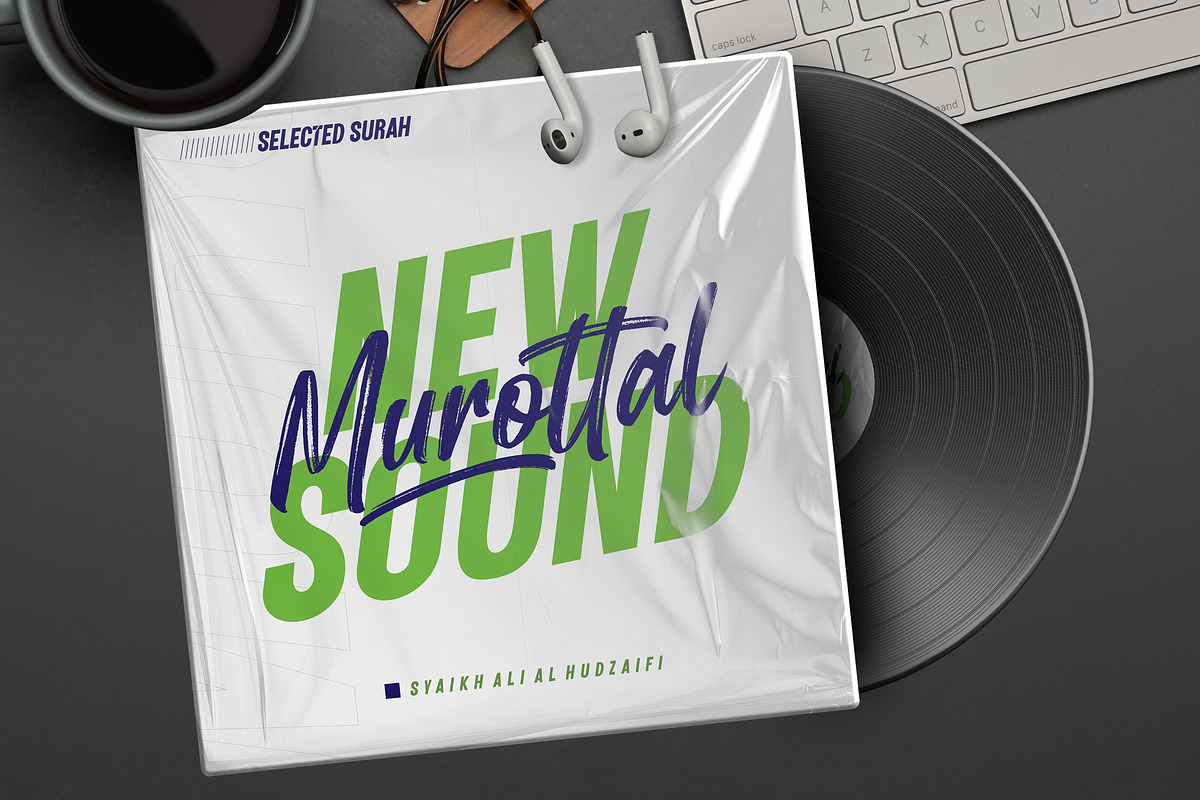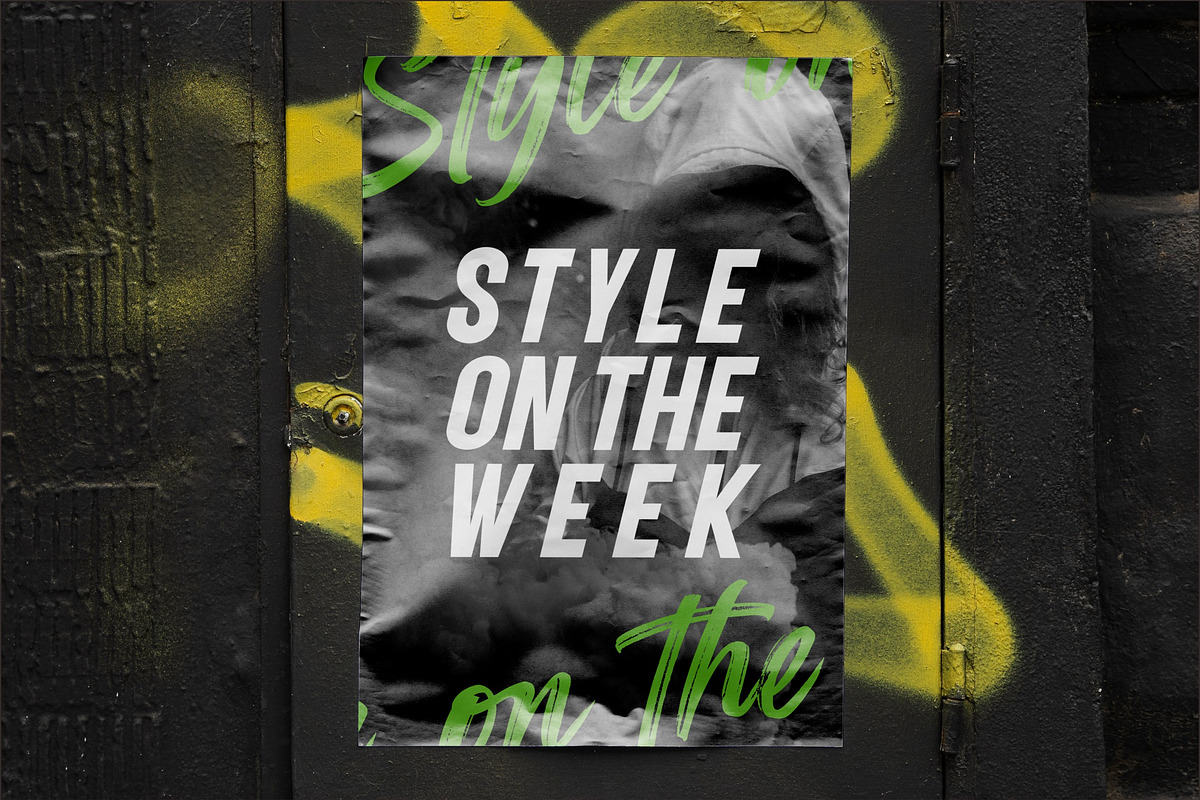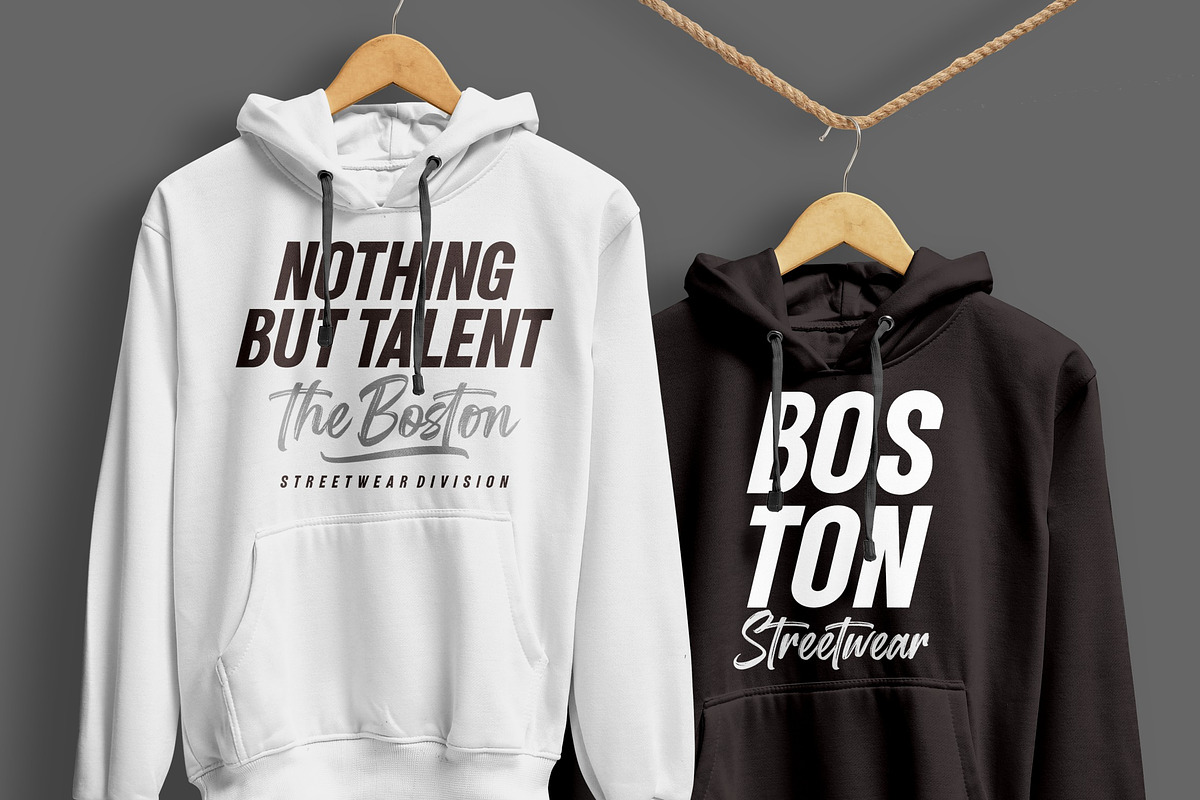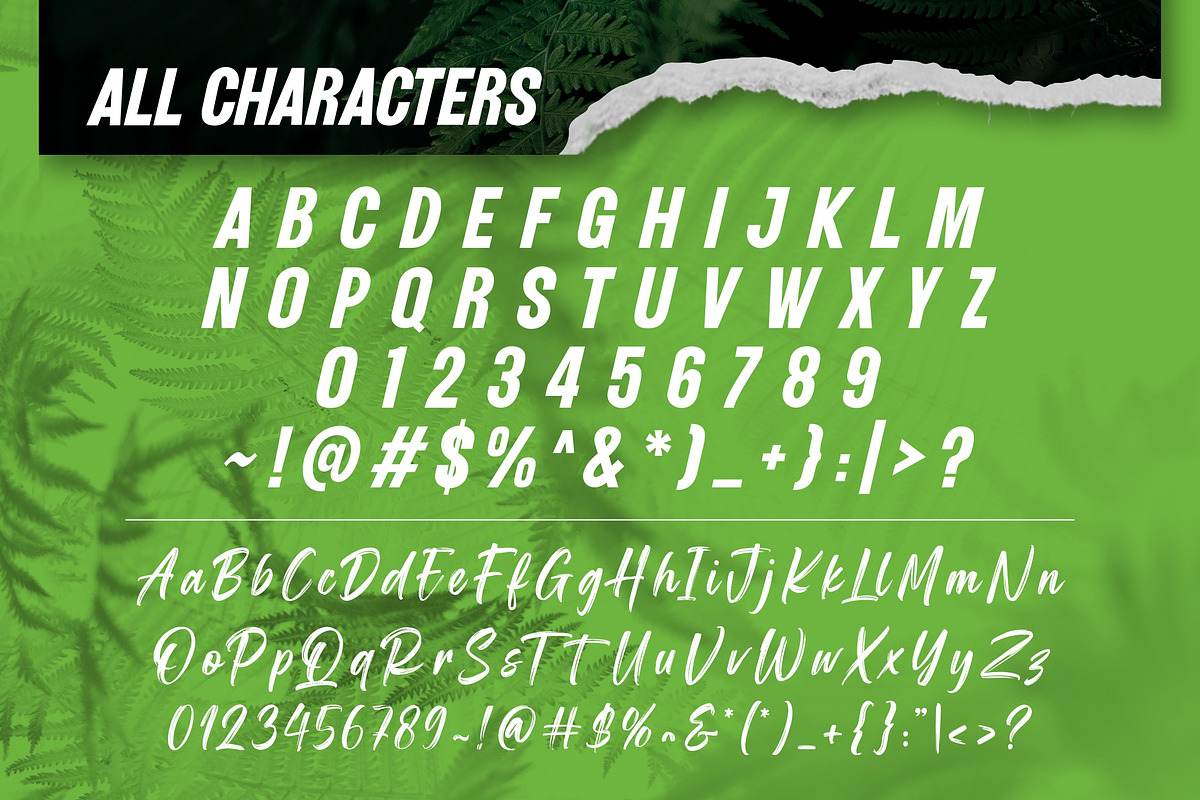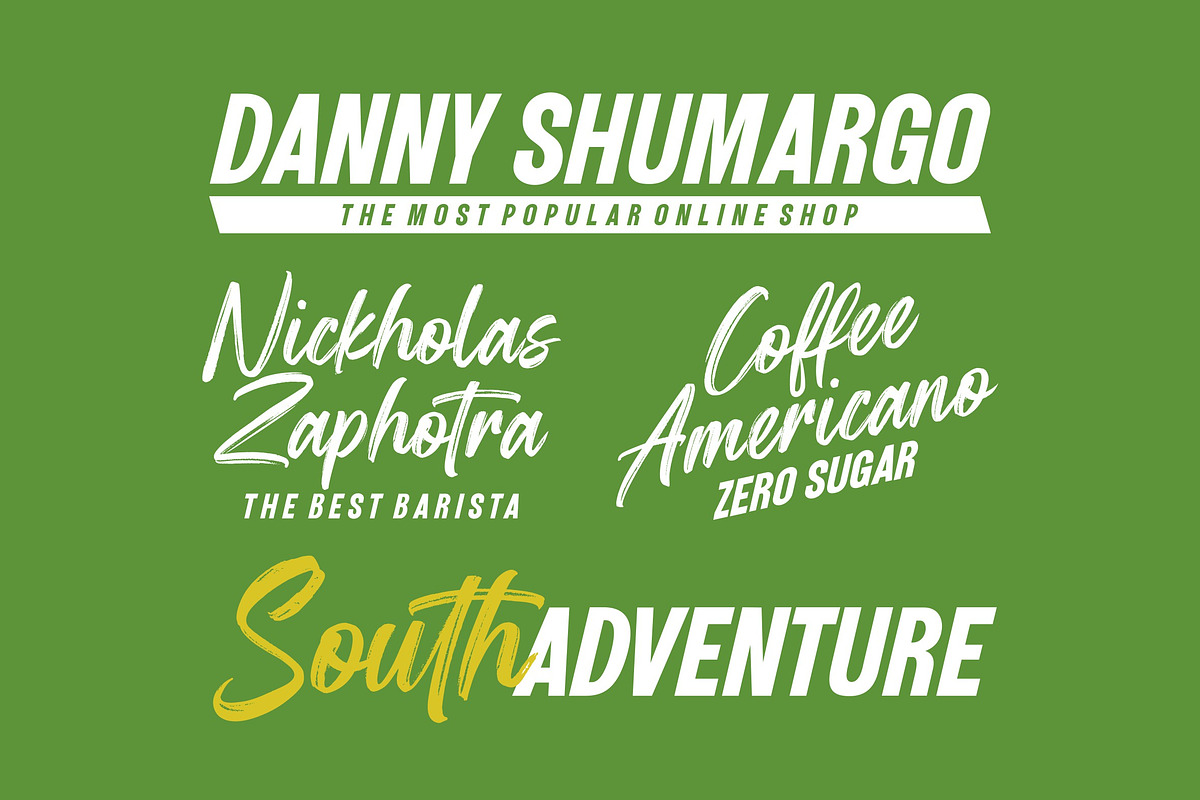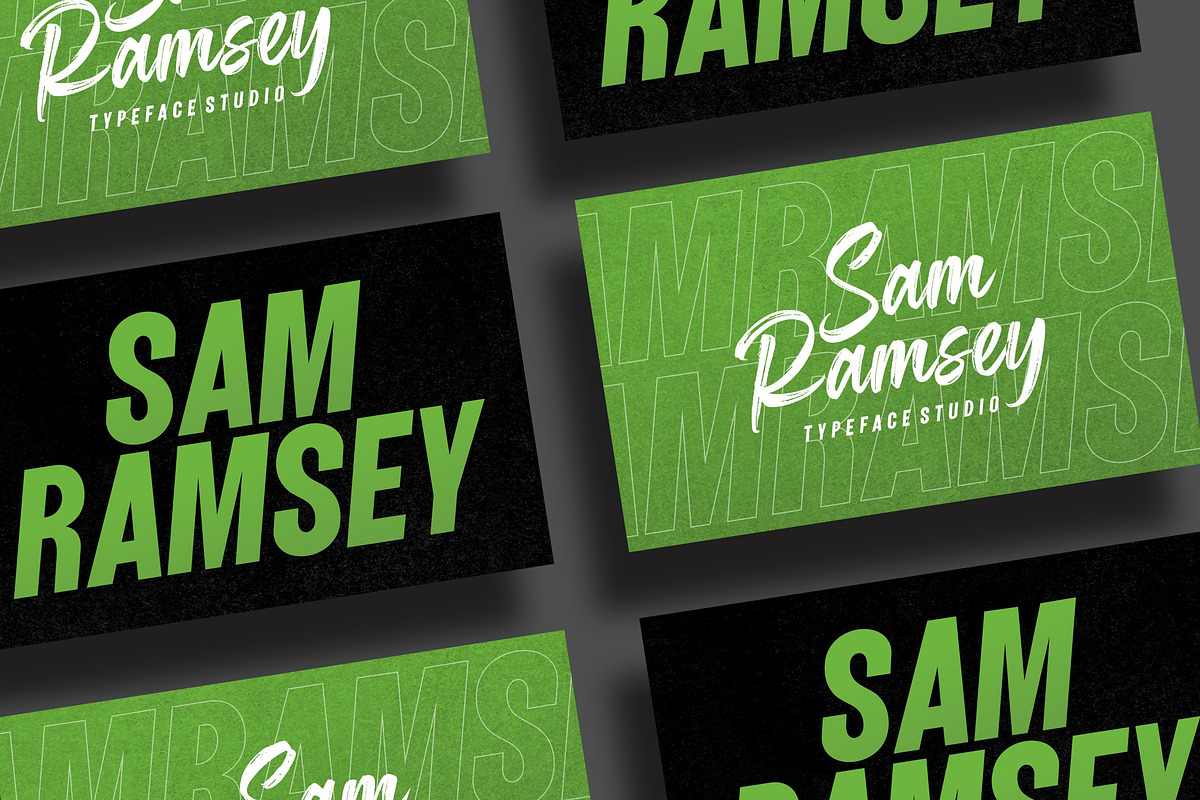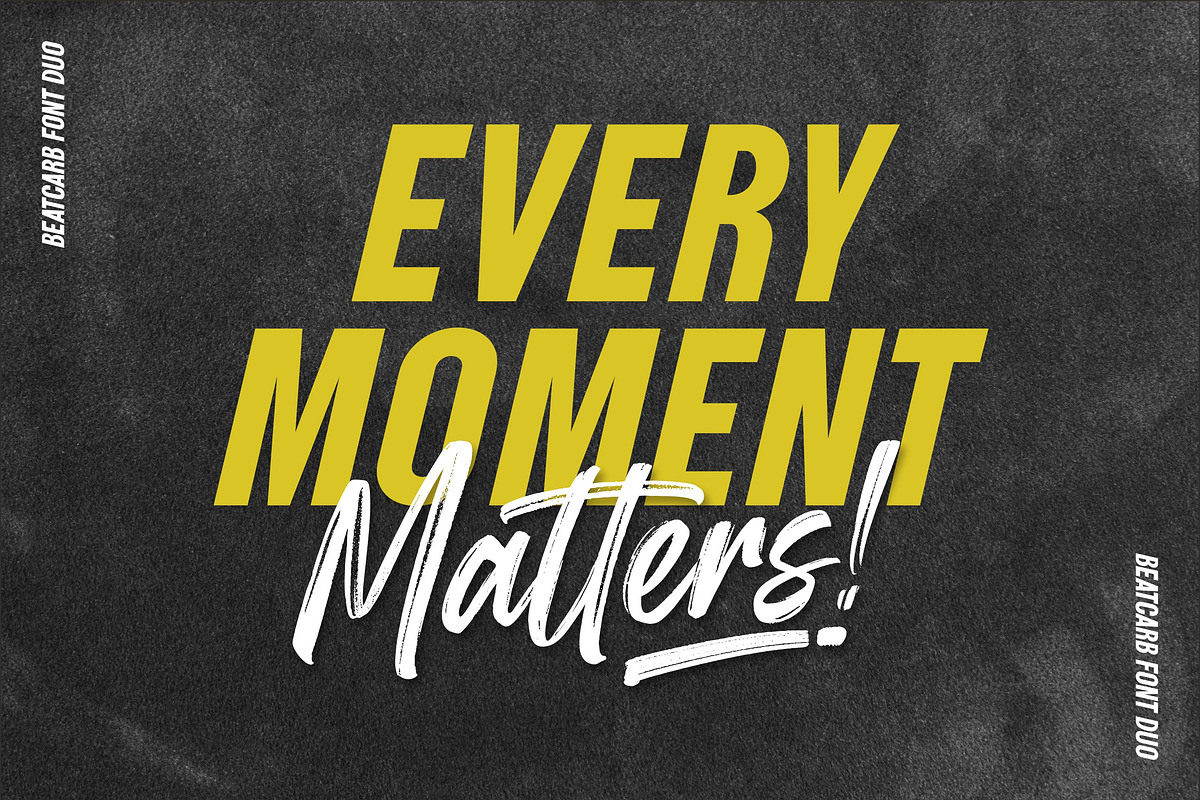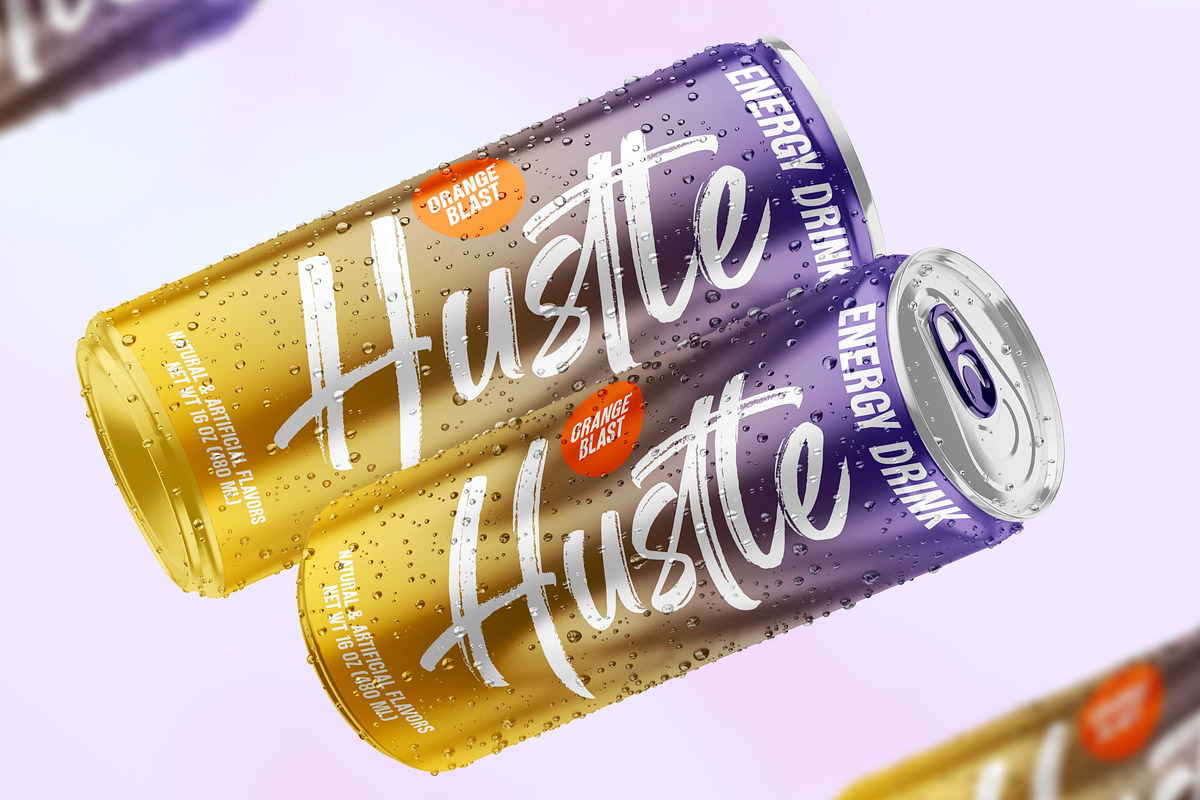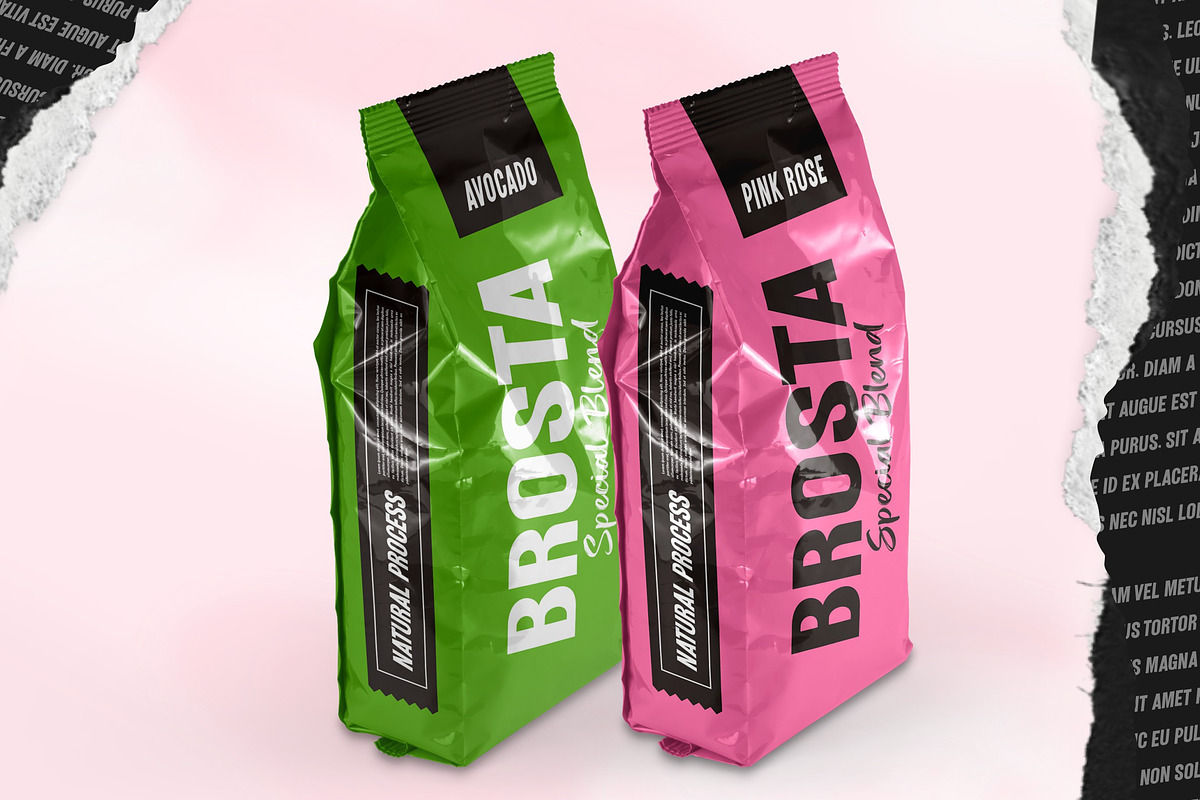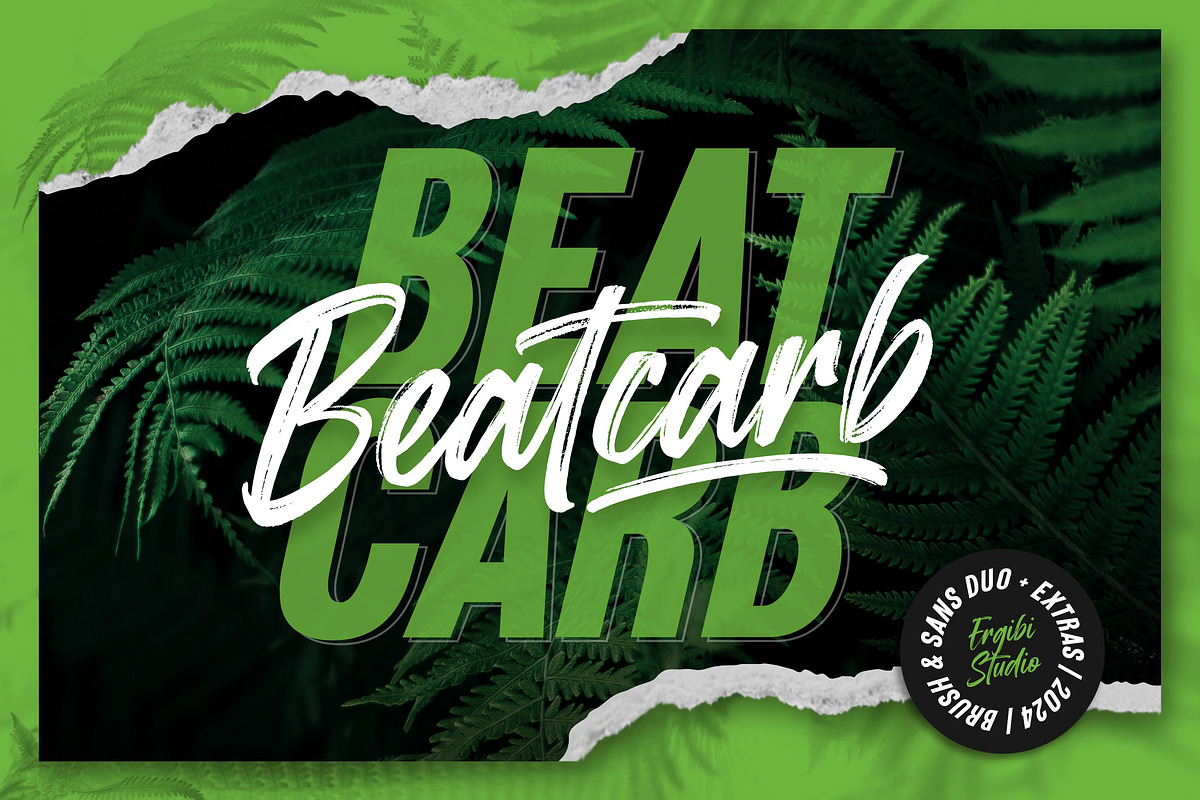
Beatcarb - Brush & Sans
Presenting a Beatcarb Font handwriting brush effect and sans typeface with an authentic, urban-inspired design. This font style, influenced by contemporary trends and branding aesthetics, offers versatile options for your upcoming project. Beatcarb is ideal for logos and branding, photography, invitations, watermarks, ads, product designs, stationery, wedding themes, labels, packaging, special events, or any application that calls for a handwritten touch.